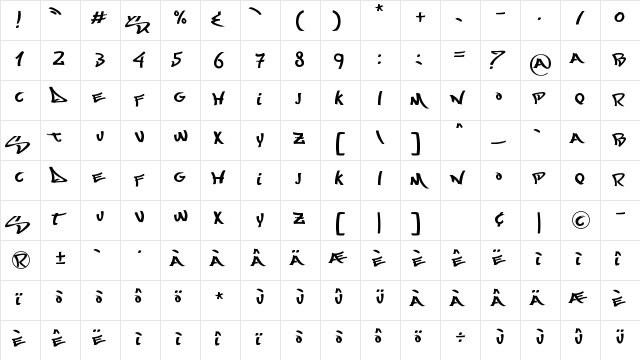
Most Wasted Regular
Design Context for Most Wasted Typeface
Most Wasted is a composed and adaptable typeface that performs quietly and consistently across a wide range of design contexts.
Pro Tip: Use Most Wasted in both headline and body roles to test its range before committing to a single application.